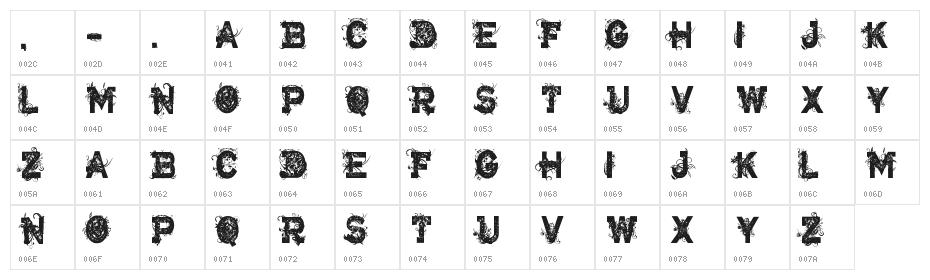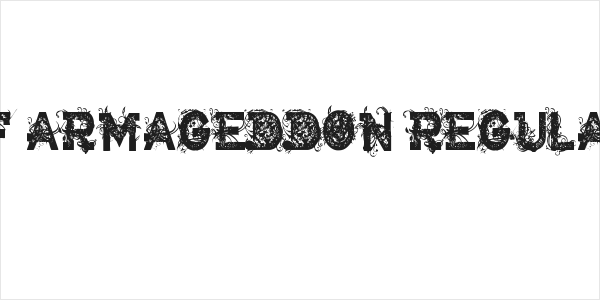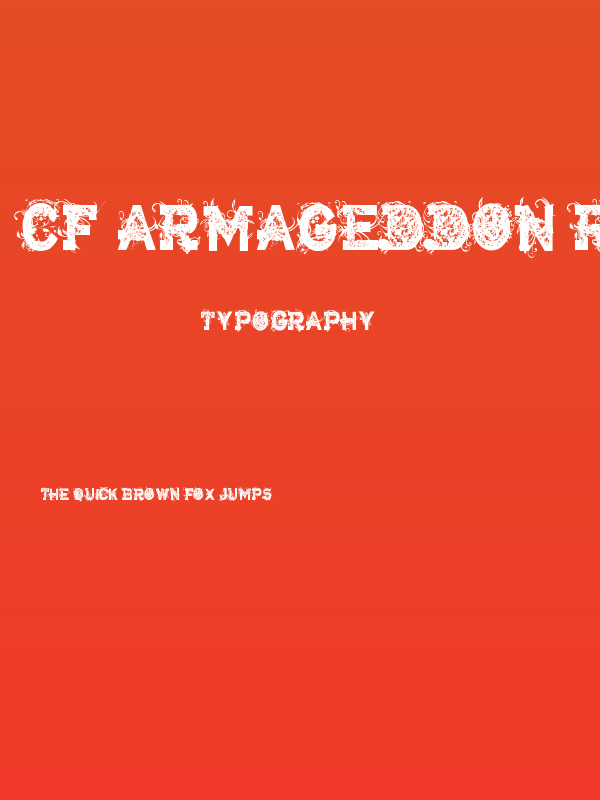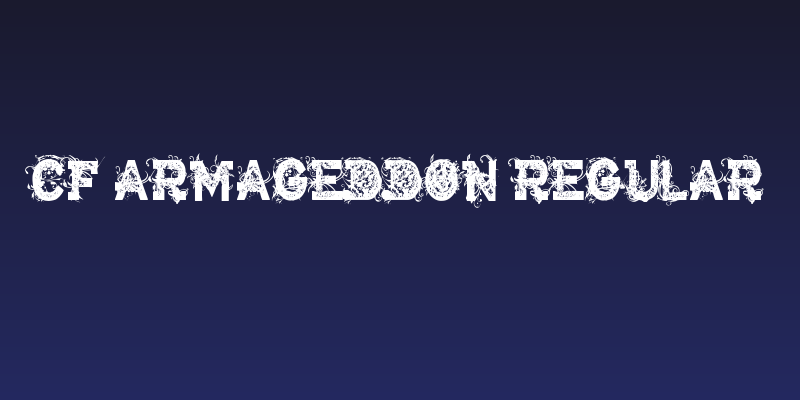
CF Armageddon Regular Font
CF Armageddon Regular Description
This font features an intricate and decorative style with elaborate flourishes and embellishments that intertwine with the bold, uppercase letters. The design is highly detailed, creating a sense of chaos and complexity, reminiscent of nature overtaking man-made structures. Each character is unique, with swirling vines and sharp edges that give it a dramatic and intense appearance. The font is primarily uppercase, with a strong presence and a striking visual impact. It is ideal for projects that require a bold statement and an artistic touch.
| Proposed Projects | Ideal for album covers, posters, event invitations, and any project requiring a dramatic, artistic flair. |